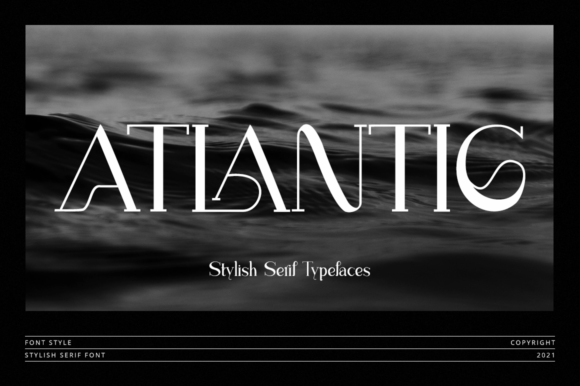
The Atlantic Font: A Clean and Minimal Serif for Your Craft Designs
An Honest Review of Atlantic Font
- ✨ Clean and minimal serif design that’s perfect for craft projects
- ✅ Easy to read and use, even for small text sizes
- 💡 Simple and elegant, making it versatile for various design styles
- 🎨 Great for mixing with other design elements, such as illustrations or graphics
While I adore the Atlantic font, there are a few things to keep in mind: 🤔
- ⚠️ Limited stylistic alternates, which might not offer as much flexibility for some designers
- ⚠️ Not ideal for very large text sizes, as it may lose some of its elegance
The Atlantic font was designed with the intention of creating a clean and minimal serif font that would be perfect for craft designs. The designer aimed to create a font that was simple, elegant, and easy to use, making it versatile for various design styles.
A: The Atlantic font is perfect for craft designs, such as invitations, greeting cards, and other paper crafts.
A: Yes, the Atlantic font can be used for digital designs, but keep in mind that it may not be optimized for very large text sizes or certain digital platforms.